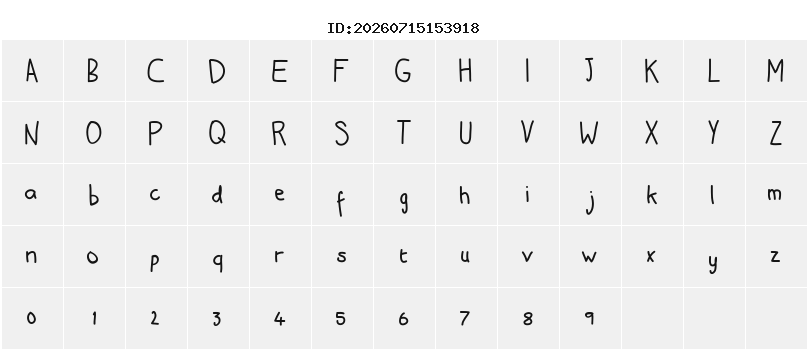
adams hand Preview
About adams hand.ttf
adams hand.ttf is a modern, elegant sans-serif font designed for ultimate readability and visual harmony. Perfect for branding, headlines, web design, and print materials.